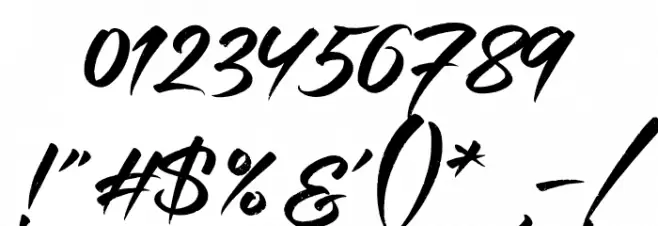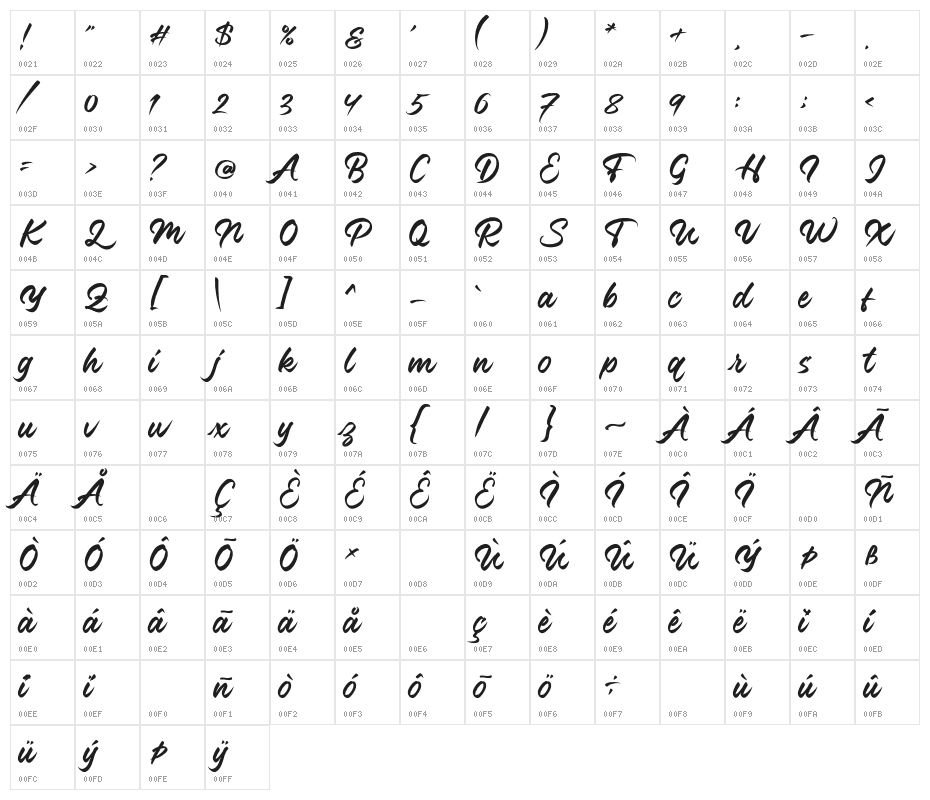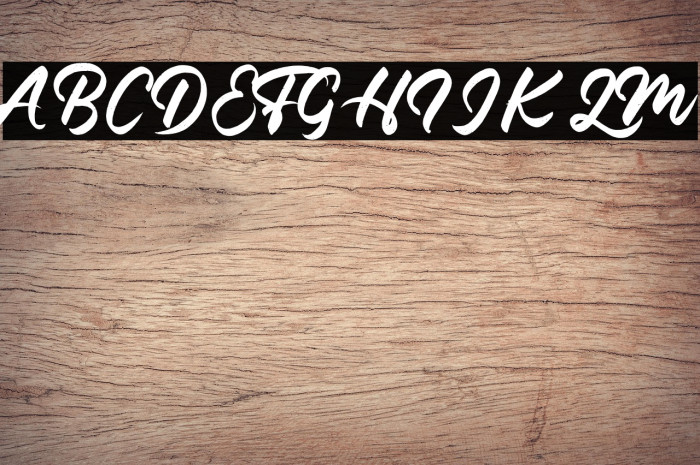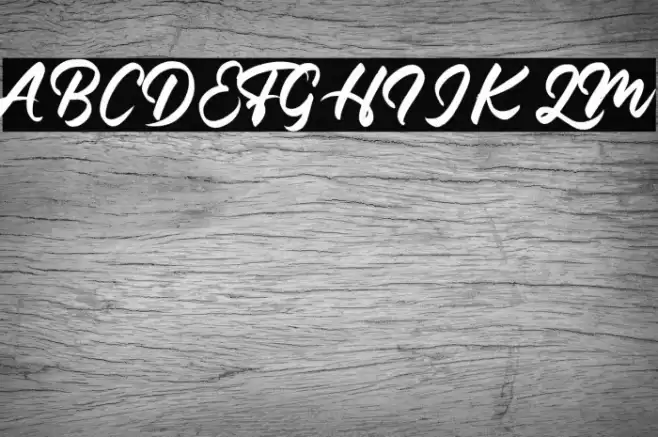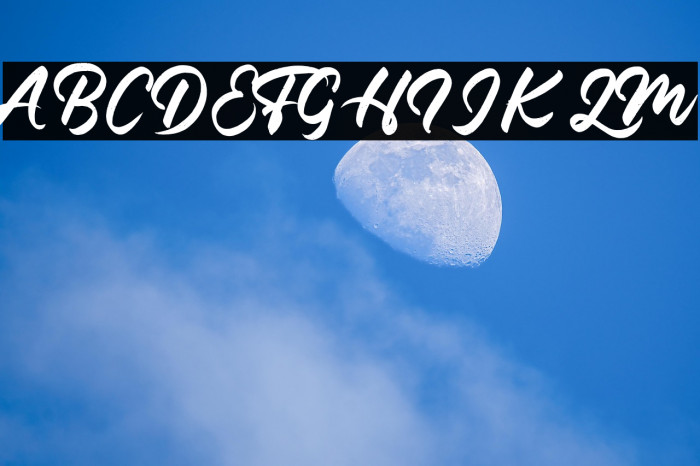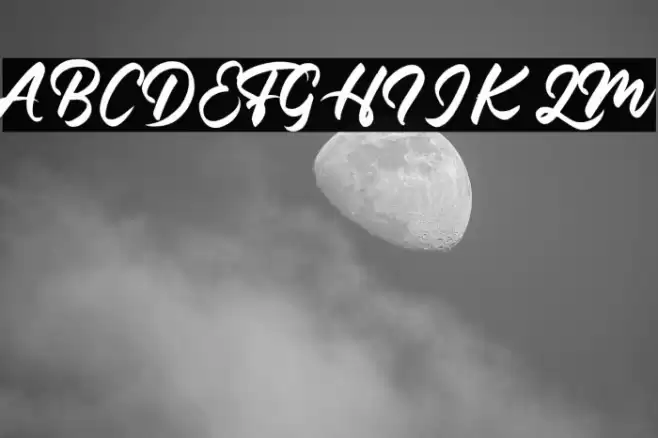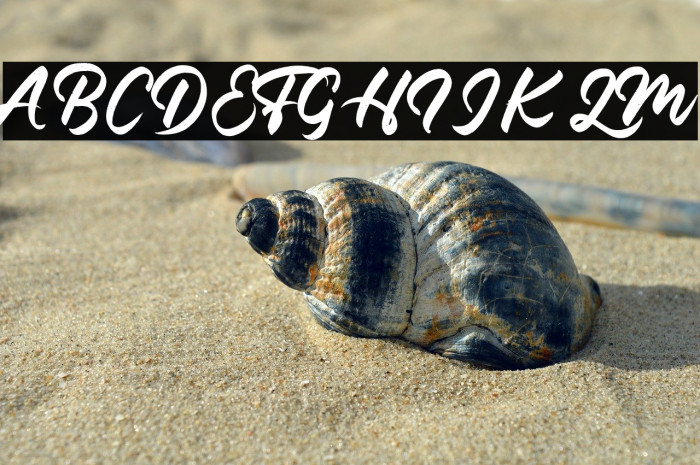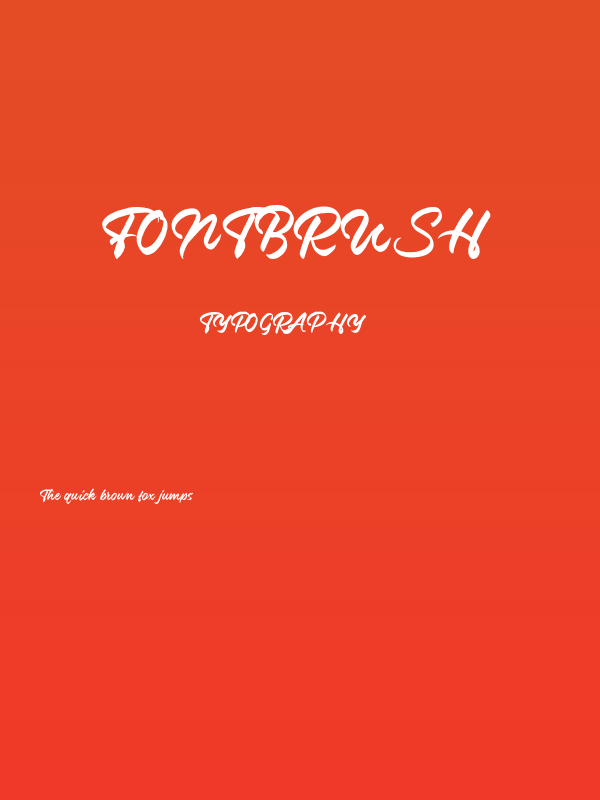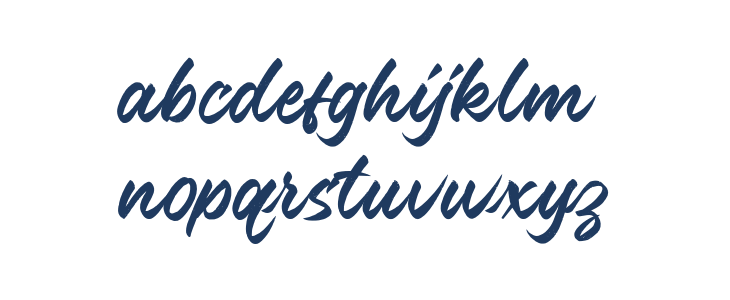
FontBrush Font
FontBrush Description
This font features a dynamic and fluid script style, characterized by its bold and expressive strokes. The letters are connected in a cursive manner, giving it a handwritten appearance. The uppercase letters are slightly larger and more pronounced, while the lowercase letters maintain a consistent flow. The numbers and special characters are designed to match the overall aesthetic, with a playful yet elegant touch. This font exudes a sense of creativity and spontaneity, making it suitable for projects that require a personal and artistic feel.
| Proposed Projects | Ideal for branding, invitations, greeting cards, and artistic projects that require a personal touch. |